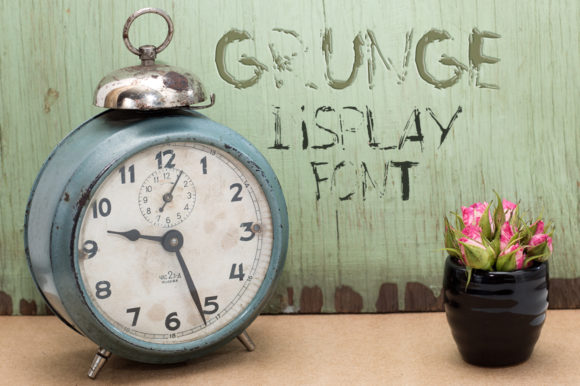
Grunge Font: The Ultimate Choice for Crafty Designs
Are you a designer or crafter looking for a unique and bold font to elevate your creative projects? Look no further than the Grunge Font. This cool, rough textured display font is perfect for adding a touch of edginess to your designs, from letterheads and titles to stationery and more.
What is Grunge Font?
Grunge Font is a type of display font characterized by its rough, textured, and distressed look. It is inspired by the grunge music scene of the 1990s, which was known for its DIY ethos and anti-mainstream aesthetic. The font’s rugged and worn appearance gives it a unique and eye-catching quality that sets it apart from more traditional fonts.
Key Features of Grunge Font
- Bold and attention-grabbing: Grunge Font is designed to make a statement. Its bold and rugged appearance ensures that your text will stand out and grab attention.
- Rough textured look: The font’s textured look gives it a unique and organic feel that adds depth and character to your designs.
- Versatile: Grunge Font can be used for a wide range of design projects, from letterheads and titles to stationery and more.
- Easy to read: Despite its rugged appearance, Grunge Font is surprisingly easy to read, making it perfect for use in titles, headings, and other display text.
Uses of Grunge Font
Grunge Font is a versatile font that can be used in a variety of design projects. Here are some ideas to get you started:
- Letterheads and titles: Add a touch of edginess to your letterheads and titles with Grunge Font.
- Stationery: Use Grunge Font to create unique and eye-catching stationery, such as greeting cards, invitations, and postcards.
- Logos and branding: Grunge Font can be used to create bold and memorable logos and branding materials.
- Posters and flyers: Add a touch of grunge style to your posters and flyers with this bold and attention-grabbing font.
Tips for Using Grunge Font
Here are some tips for using Grunge Font effectively in your designs:
- Use it sparingly: Grunge Font is a bold and attention-grabbing font, so use it sparingly to avoid overwhelming your design.
- Pair it with simple fonts: Pair Grunge Font with simple and clean fonts to create visual interest and contrast.
- Experiment with colors: Grunge Font looks great in a variety of colors, so experiment with different color schemes to find the one that works best for your design.
| Font Name | Grunge Font |
| Author | Ana Babi |
Grunge Font is a cool, rough textured display font that is perfect for designers and crafters looking to add a touch of edginess to their designs. With its bold and attention-grabbing appearance, versatile uses, and easy readability, Grunge Font is a great choice for a wide range of design projects. So why not give it a try and see how it can elevate your designs?